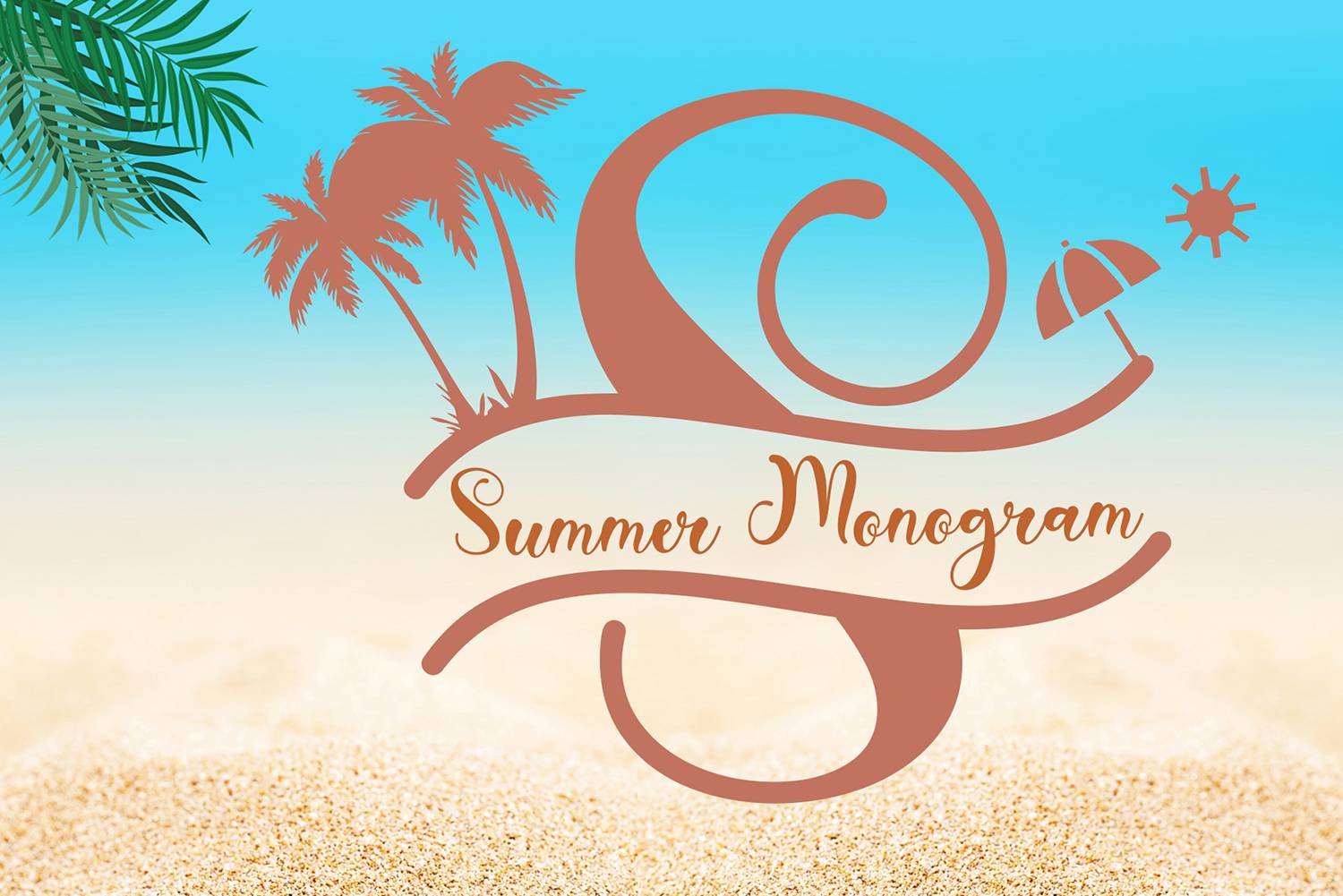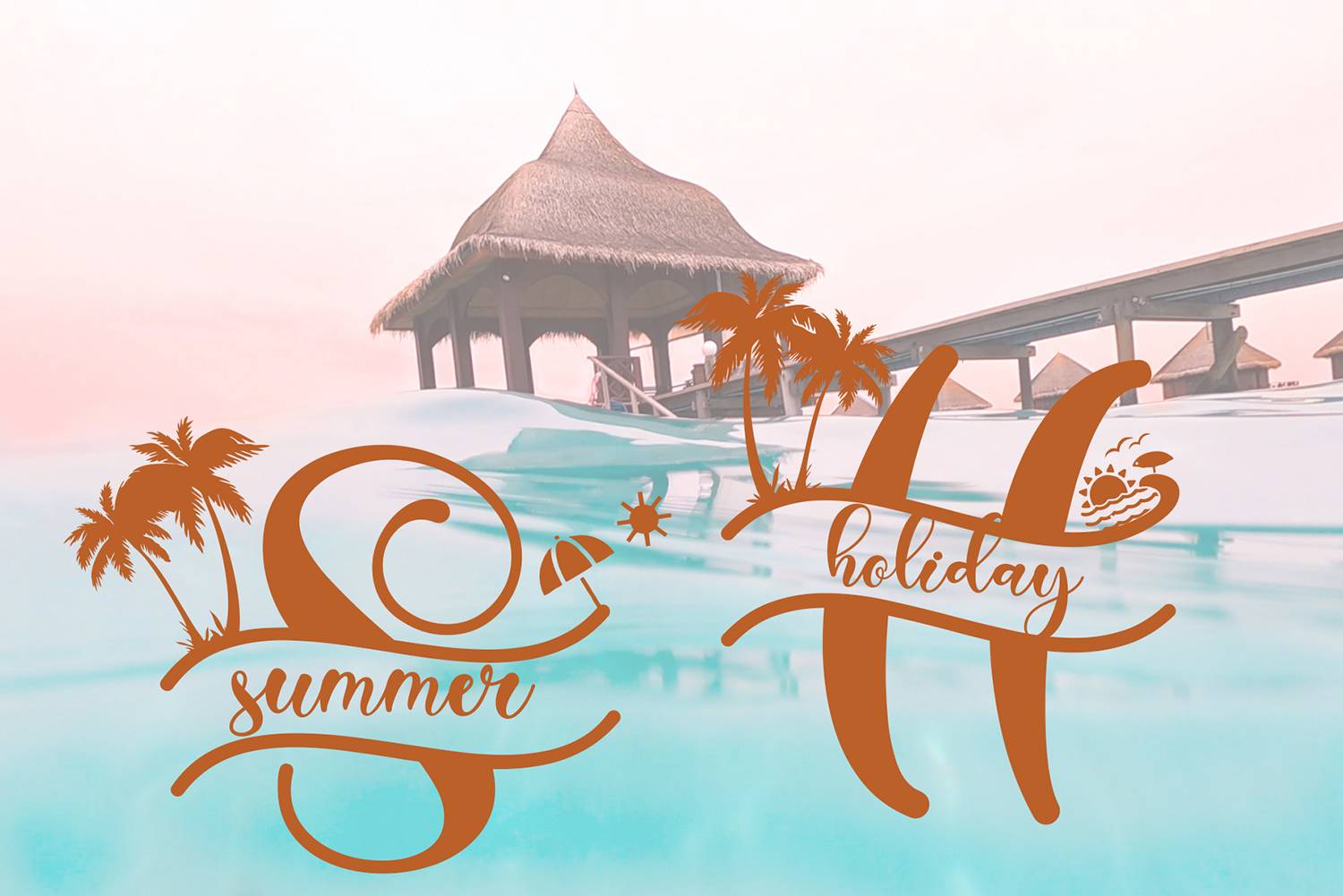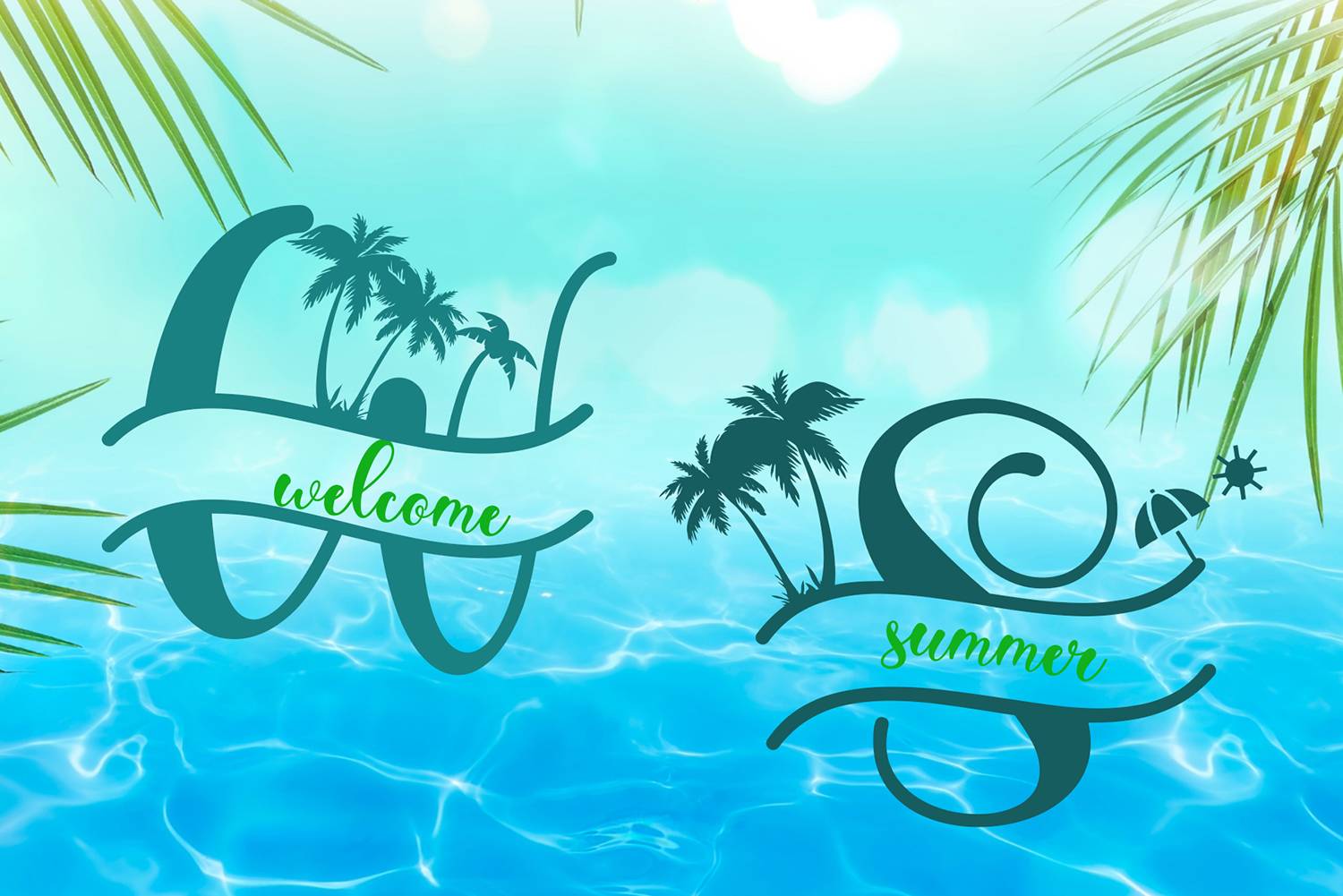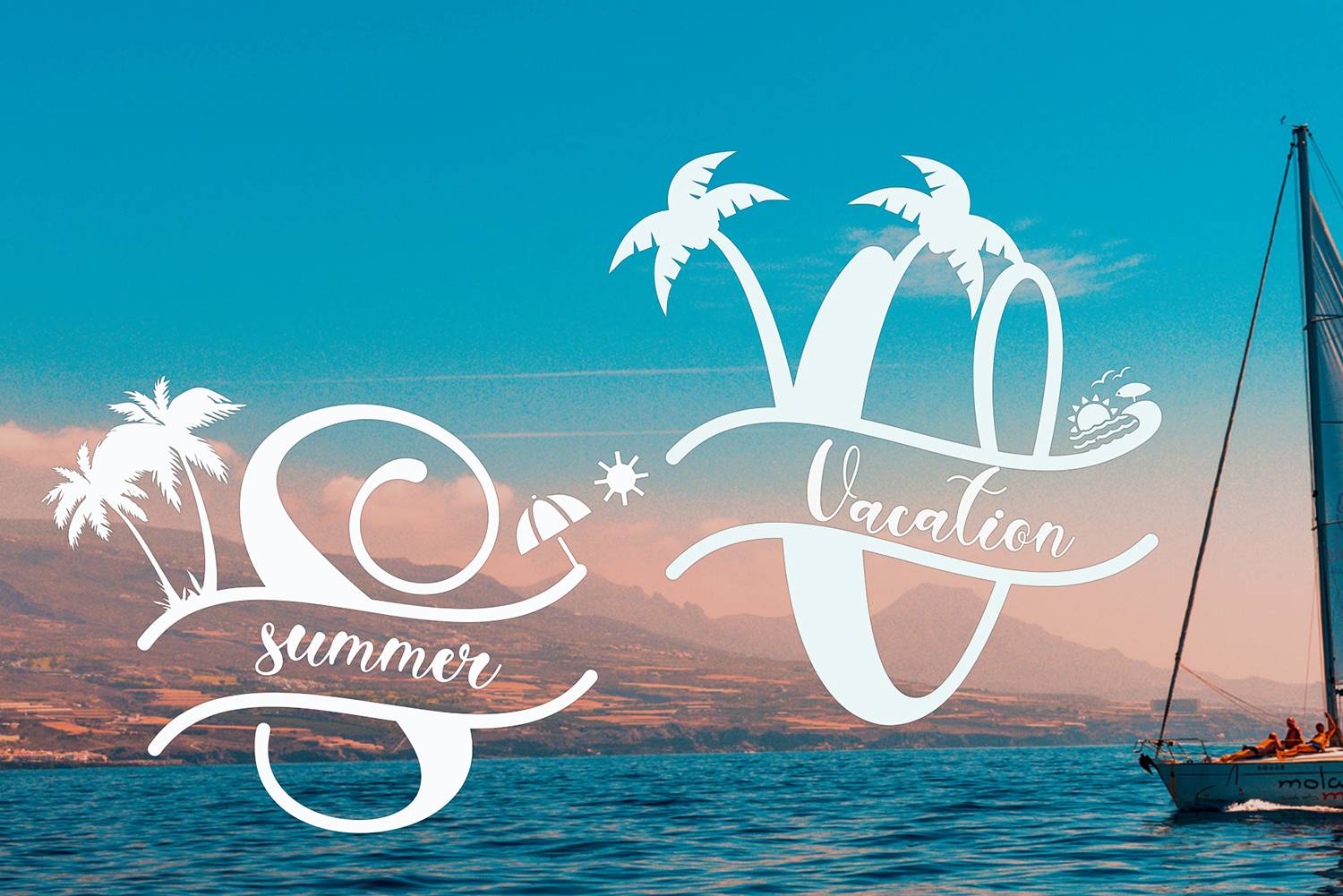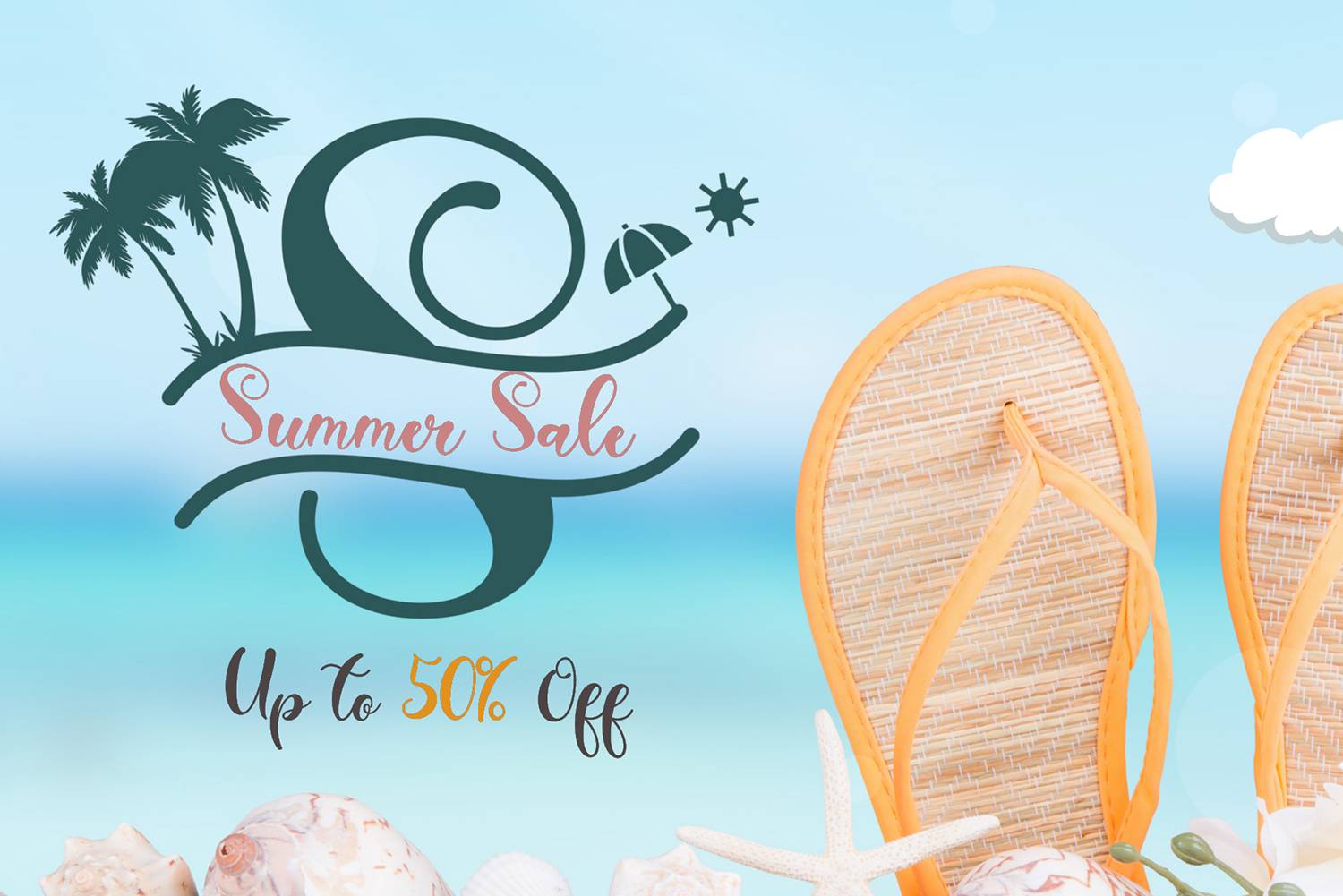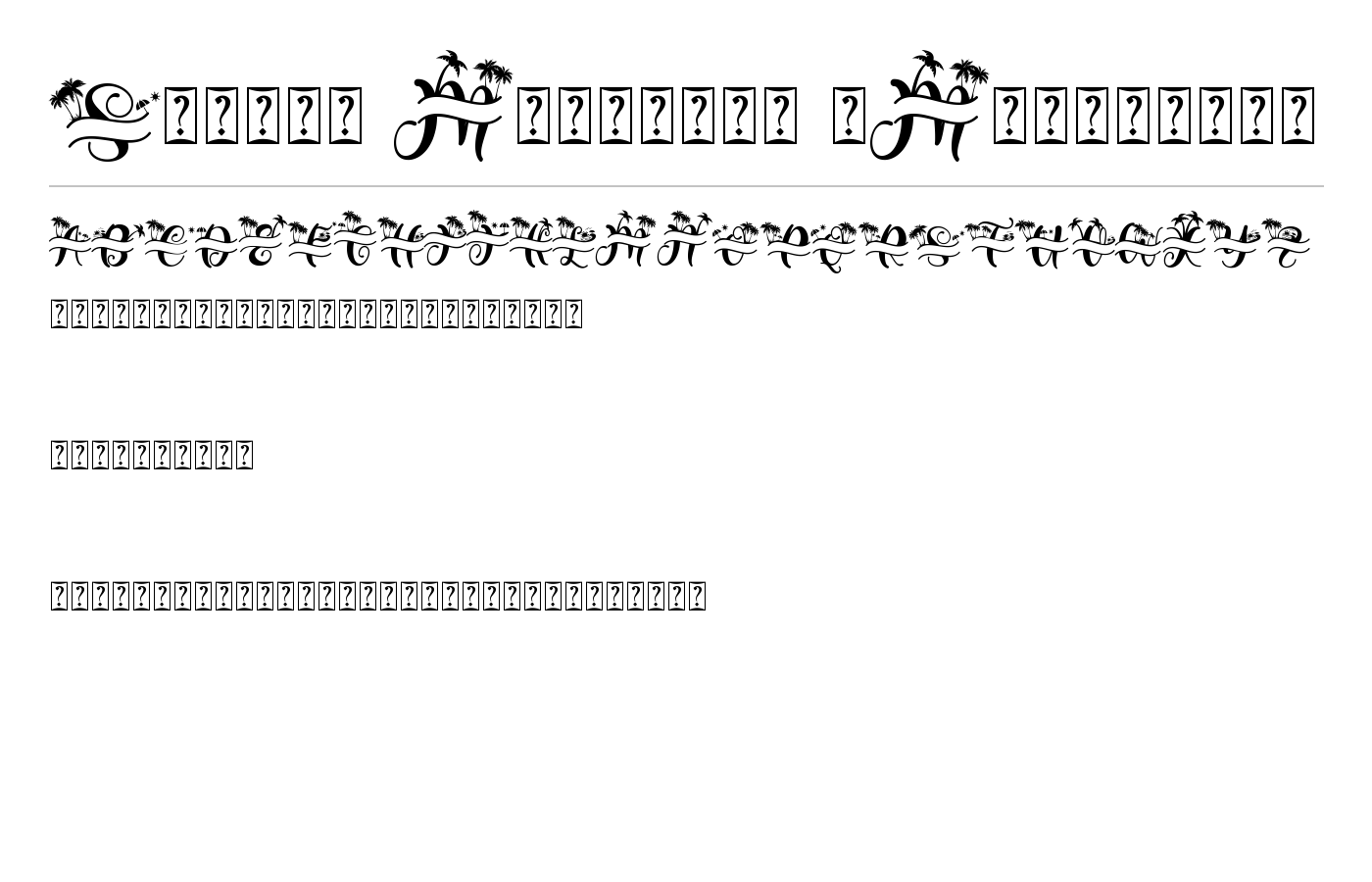
Summer Monogram is a decorative, serif-style font characterized by elegant, sweeping letterforms adorned with playful palm tree motifs, evoking a tropical, summery vibe. Its elaborate and ornamental design makes it perfect for luxury branding, wedding invitations, and seasonal event logos, where a unique and stylish monogram look is desired. This font works best in larger sizes as a statement piece, rather than for body text.
Summer Monogram Font
About Summer Monogram Font
| Font family | Summer Monogram Font |
| Release date | 2022-05-14 |
| Designer | Yoga Letter 2022 (Isroni Yoga Prasetya) |